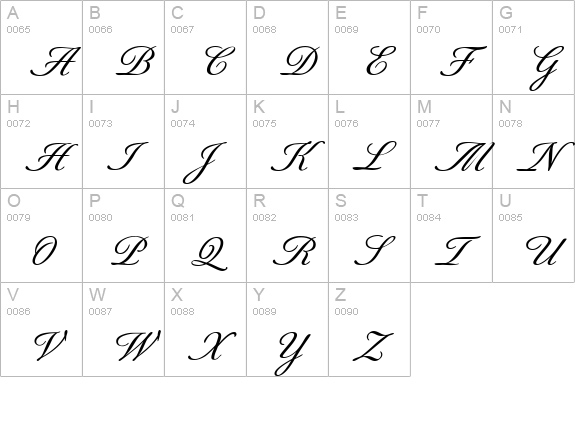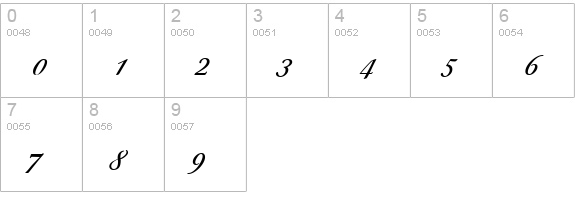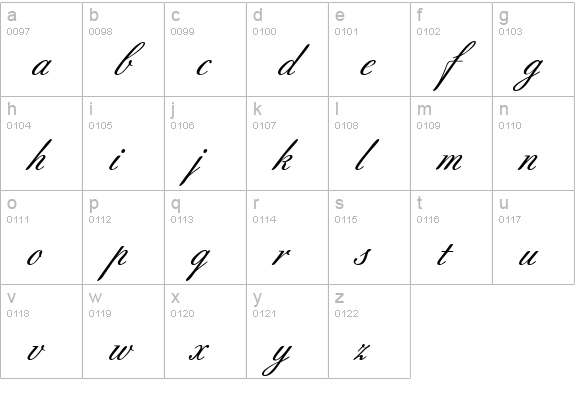
B690-Script-Bold Font Details
B690-Script-Bold is a strong, high-contrast variant in the B690 typeface family \xE2\x80\x94 well suited to headlines, attention-grabbing titles, and strong calls-to-action.
Introducing B690-Script-Bold font - a striking and elegant typeface that exudes sophistication and charm. This bold script font is perfect for adding a touch of luxury to your designs, whether it's for invitations, branding, or signage. With its graceful curves and strong presence, B690-Script-Bold font makes a statement that is both powerful and refined. And the best part? This exquisite font is available for free download at FontsMarket.com! Now you can elevate your projects with this premium font without breaking the bank. Don't miss out on the opportunity to add B690-Script-Bold to your font collection and bring your designs to the next level. Download it today and let your creativity shine with this stunning typeface.